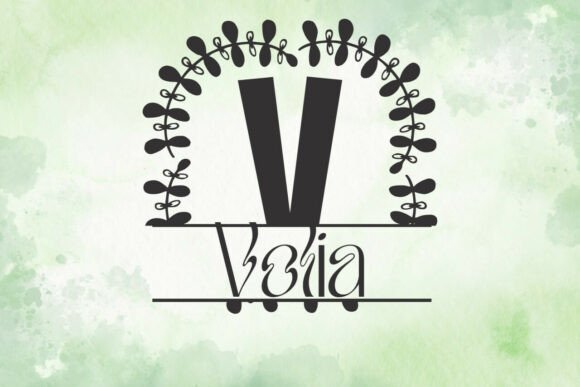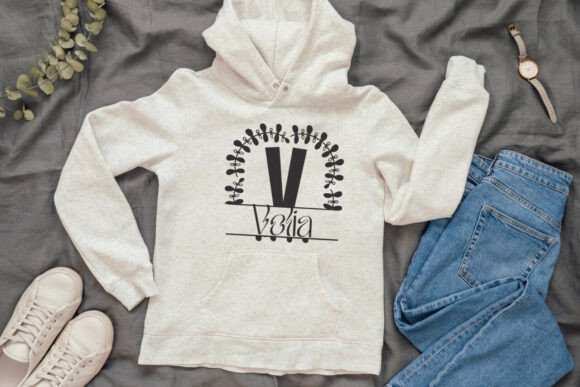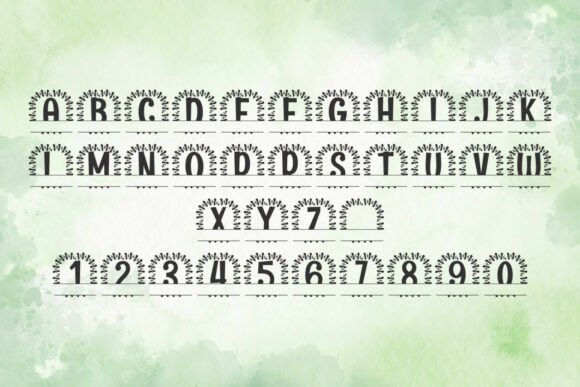
Introduction to Ornalis Split Monogram Font
Have you ever been working on a special project, pouring your heart and soul into the details, only to realize the perfect finishing touch is a beautiful custom monogram? That’s where the Ornalis Split Monogram Font comes in – a game-changing design resource that elevates any creative project from ordinary to extraordinary.
As a designer, you know the value of a high-quality, versatile font that can be used in a variety of contexts. With Ornalis Split Monogram Font, you can create stunning, custom-ready nameplates that exude refinement and luxury. Whether you’re working on a wedding keepsake, a family gift, or premium signage, this elegant split monogram font is the perfect addition to your design arsenal.
Key Features of Ornalis Split Monogram Font
- Unique split monogram design with intricate details and ornate elements.
- Comes with a transparent background, making it easy to use in various design contexts.
- Perfect for designers looking to add a touch of elegance and sophistication to their designs.
Honest Review: Ornalis Split Monogram Font
What works well: ✨ The Ornalis Split Monogram Font has a high quality, elegant design that’s perfect for adding a touch of sophistication to your projects. The transparent background makes it easy to layer and customize, and the font is incredibly versatile.
- Unique and elegant design
- High quality and clear typography
- Perfect for creative projects, logos, and branding
However, there are a few limitations: ⚠️ The font is only available in a single style, which might limit its use in more complex designs. Additionally, the font size and spacing can be a bit tricky to work with, especially for beginners.
Overall, I’m really impressed with the Ornalis Split Monogram Font. It’s a valuable addition to any designer’s toolkit, and I highly recommend it for anyone looking for a high-quality, unique font to elevate their creative projects.
Getting the Most Out of the Font
To get the most out of the Ornalis Split Monogram Font, use it to create custom monograms, logos, and graphics for your design projects. Experiment with different font sizes, colors, and styles to add a unique touch to your designs.
The Ornalis Split Monogram Font is perfect for creating custom designs for weddings, birthdays, and other special occasions. You can also use it to create logos, business cards, and other marketing materials.